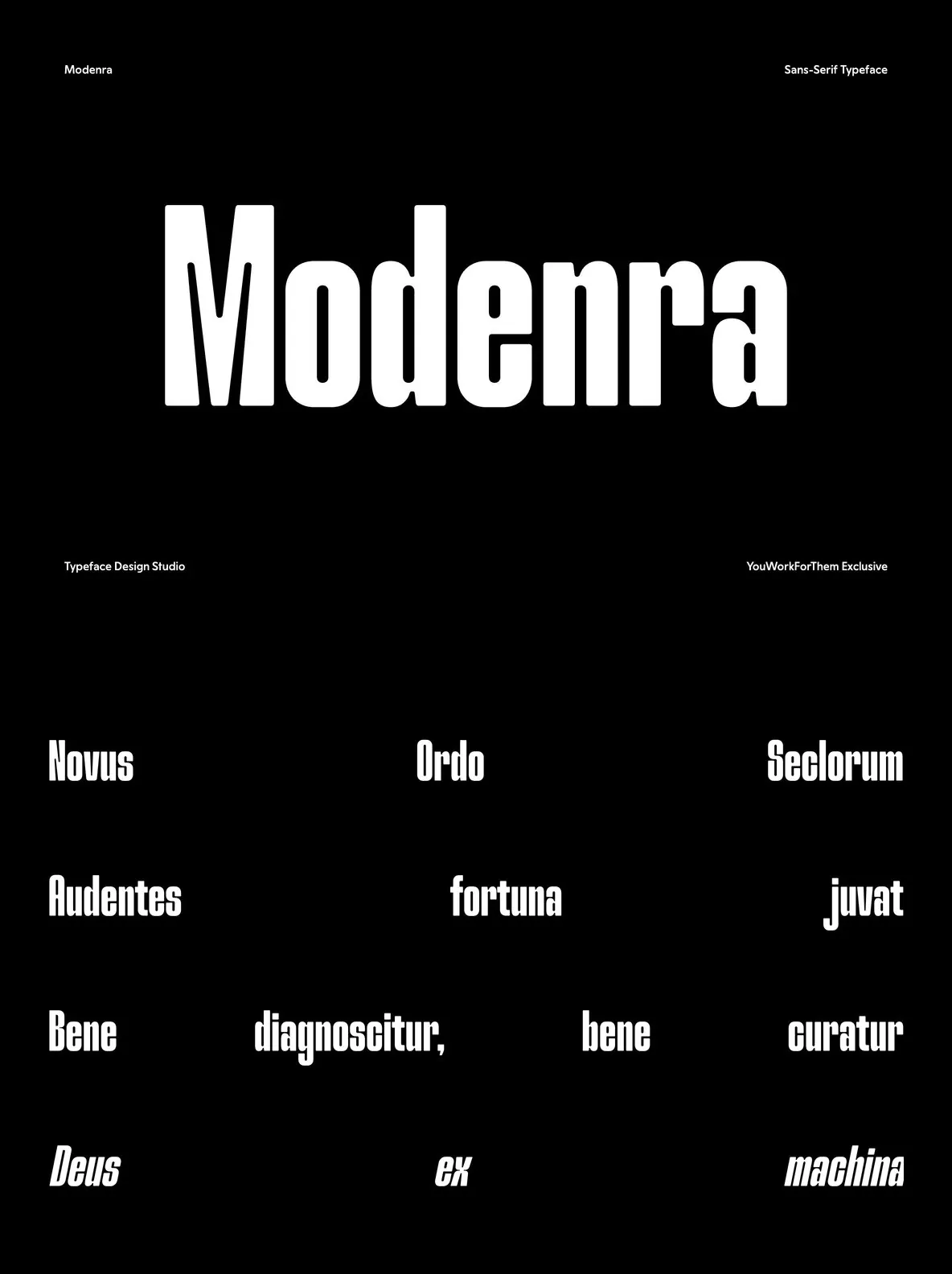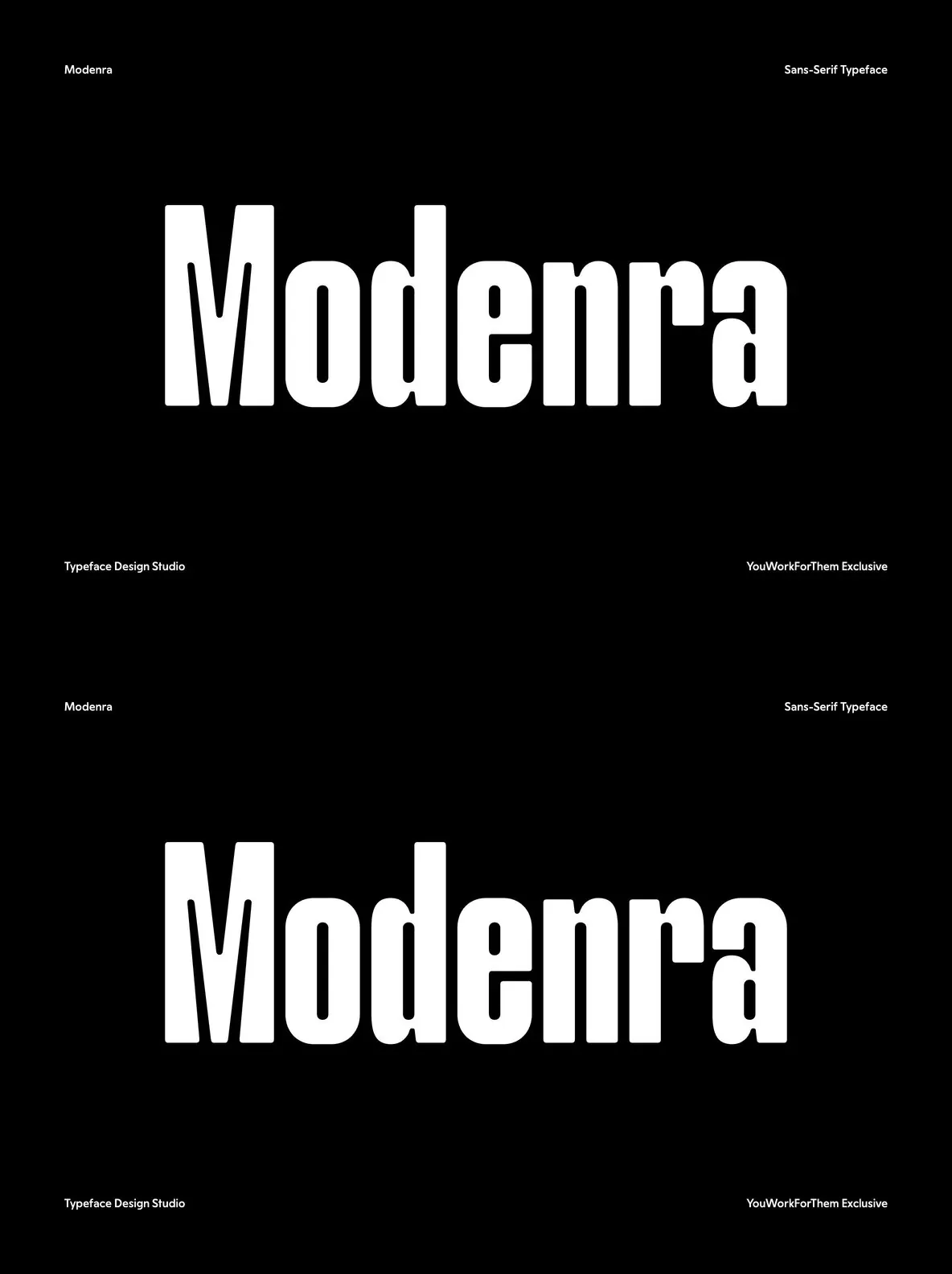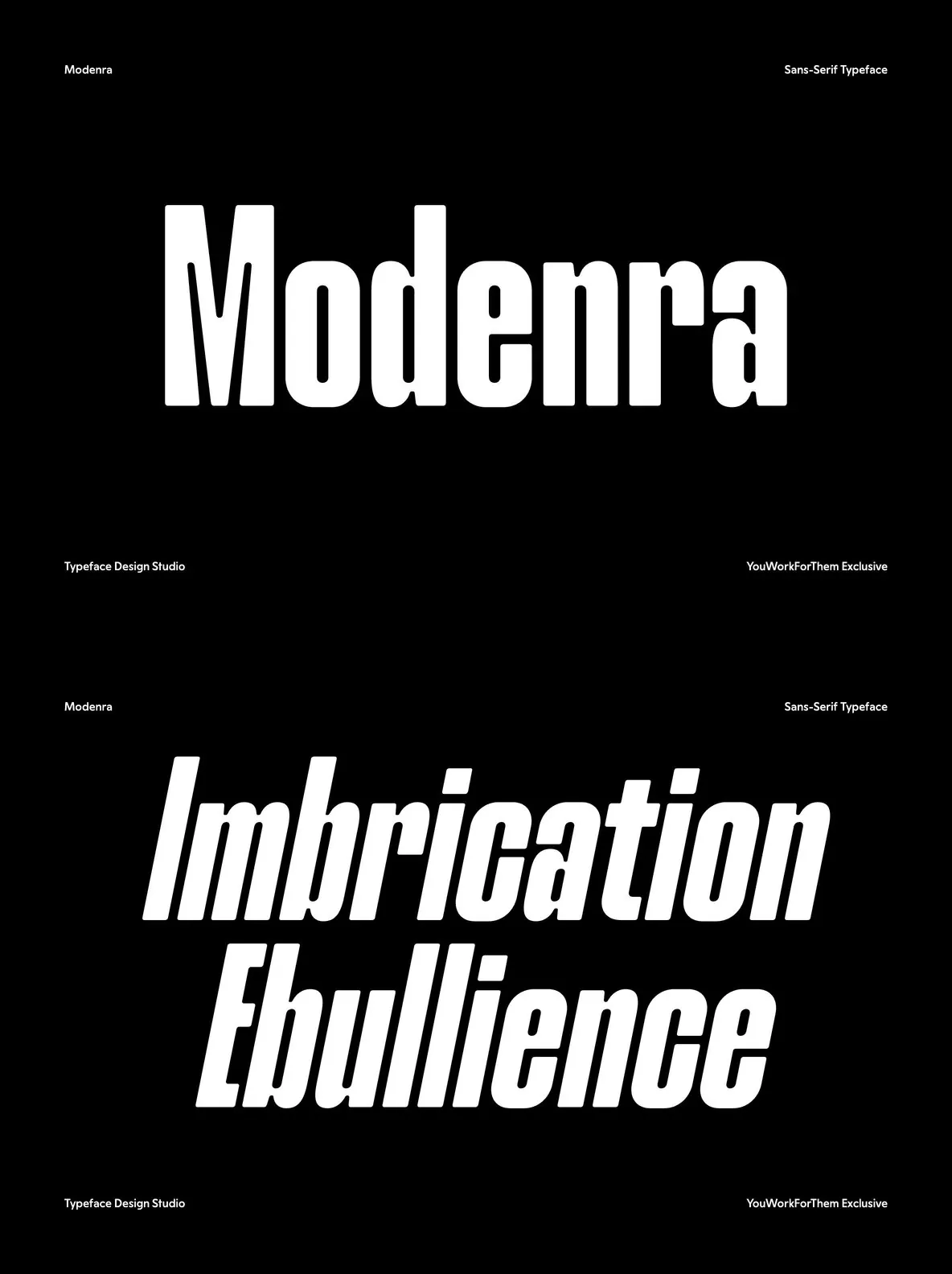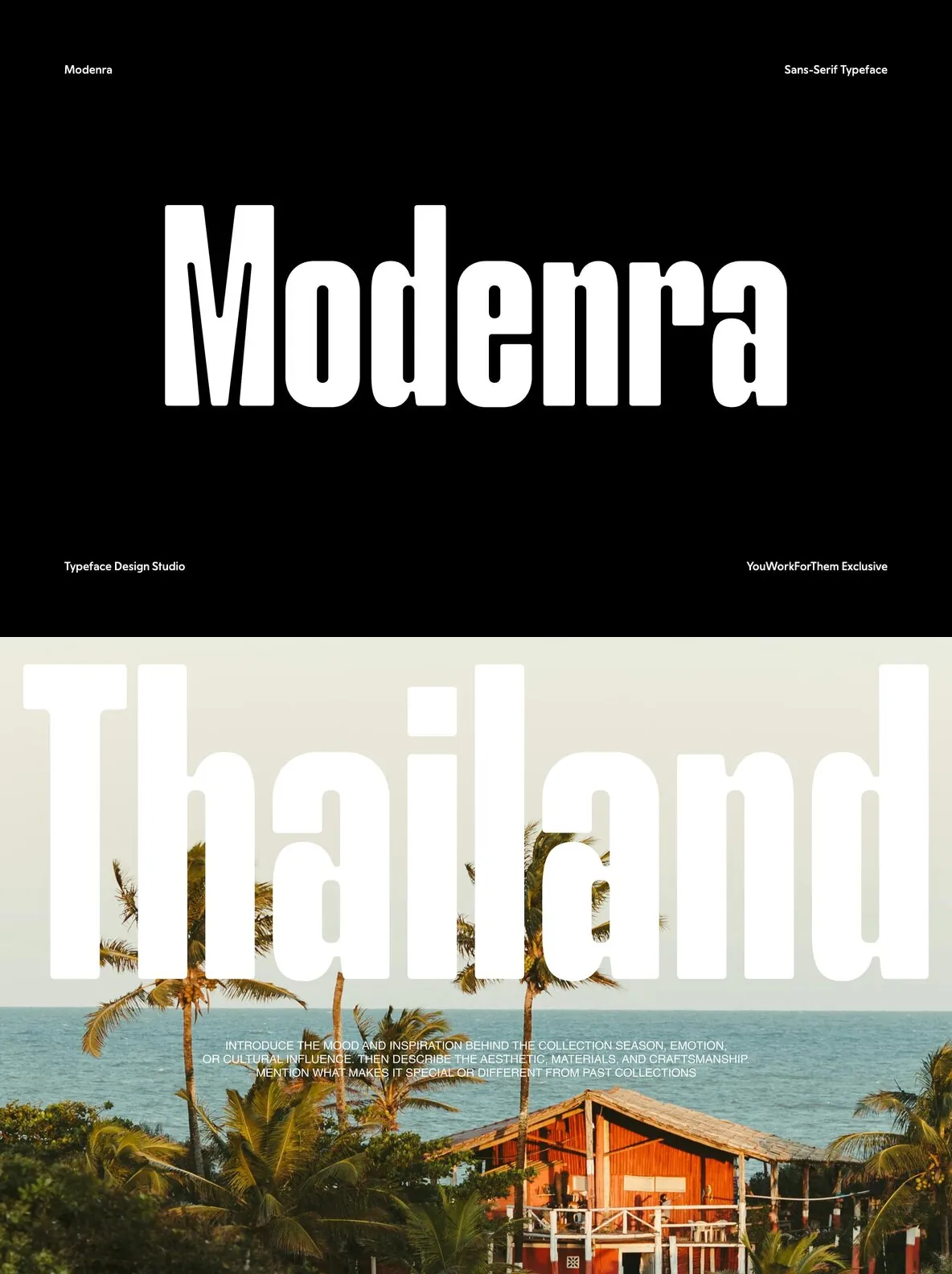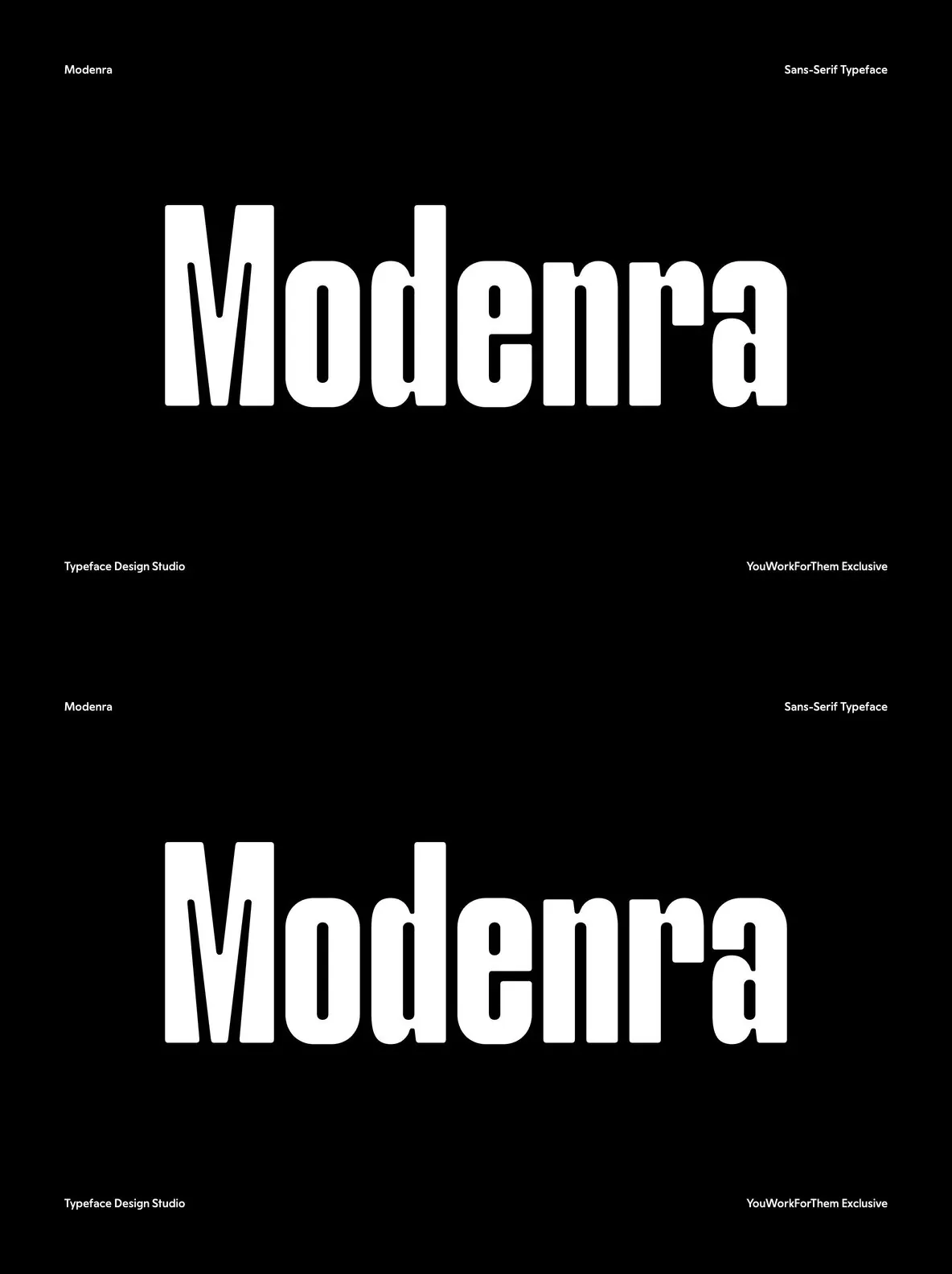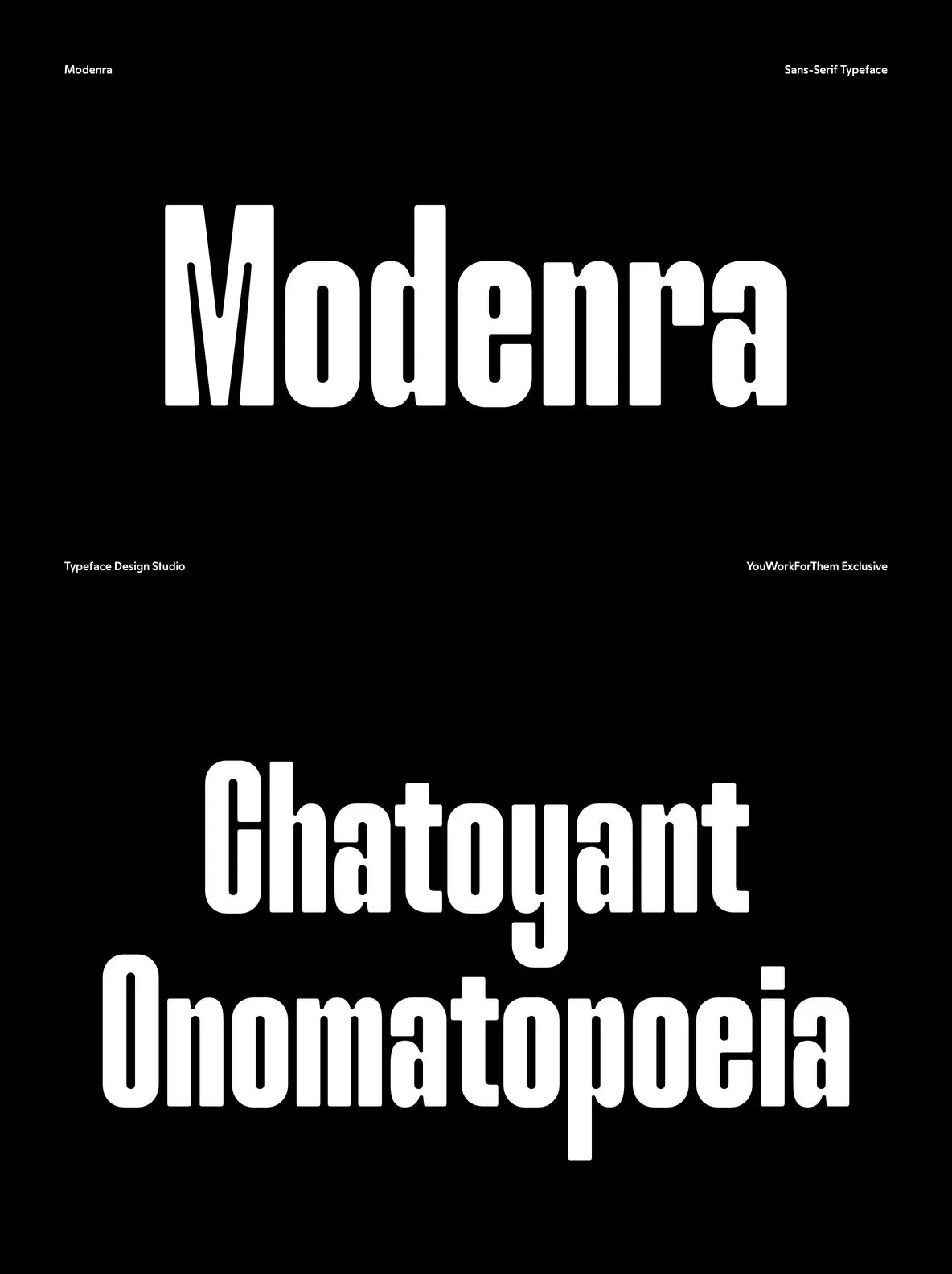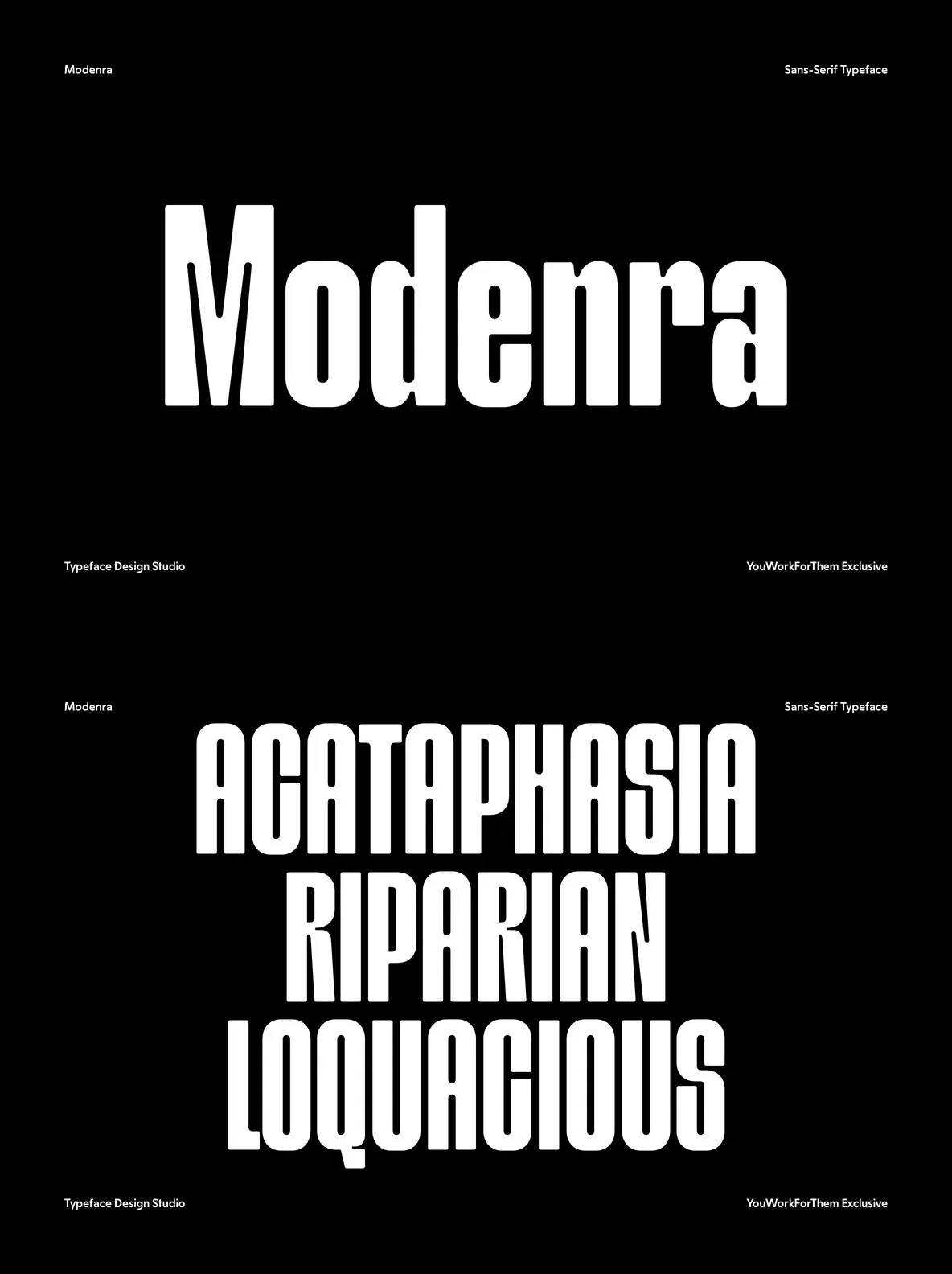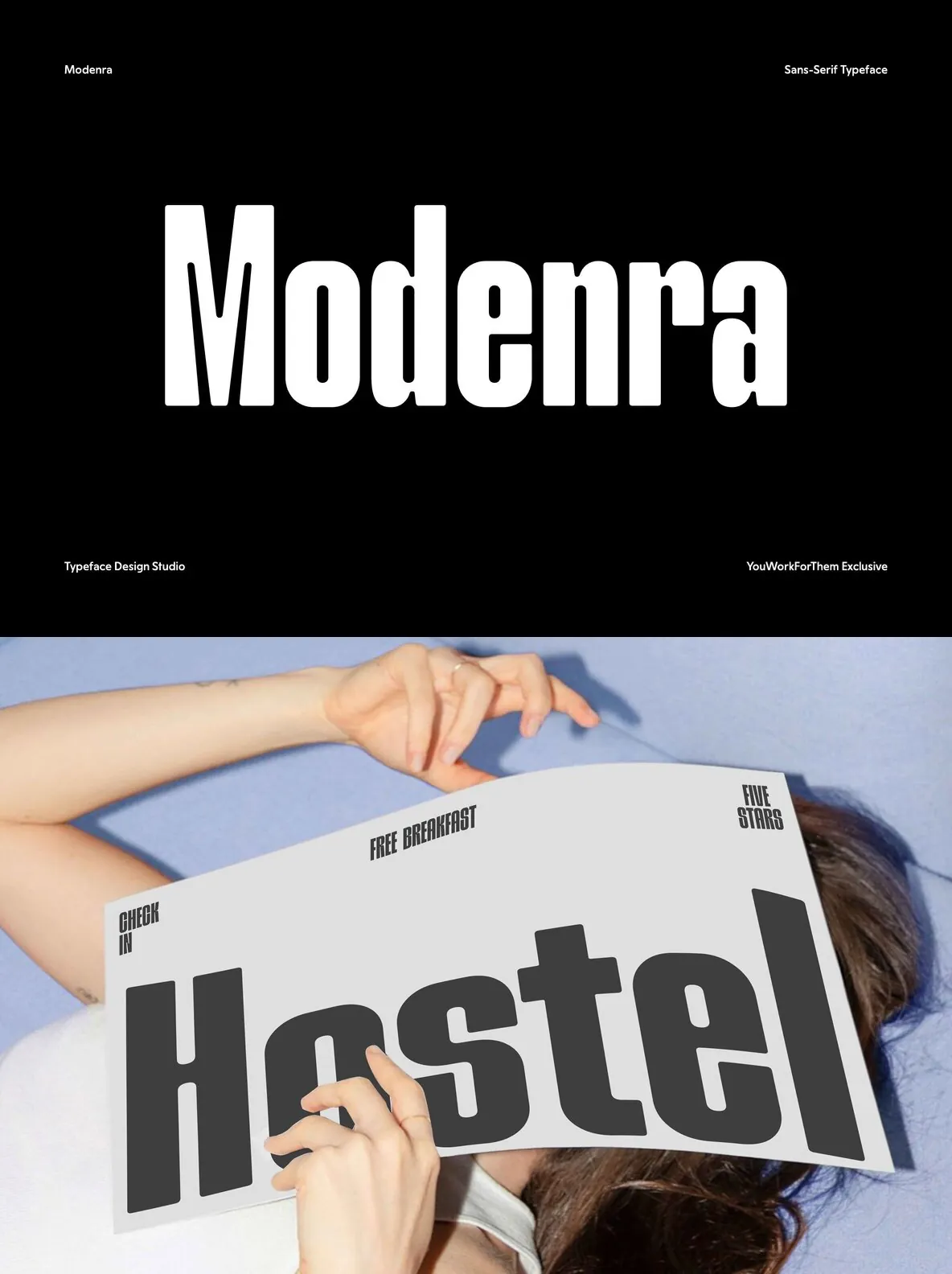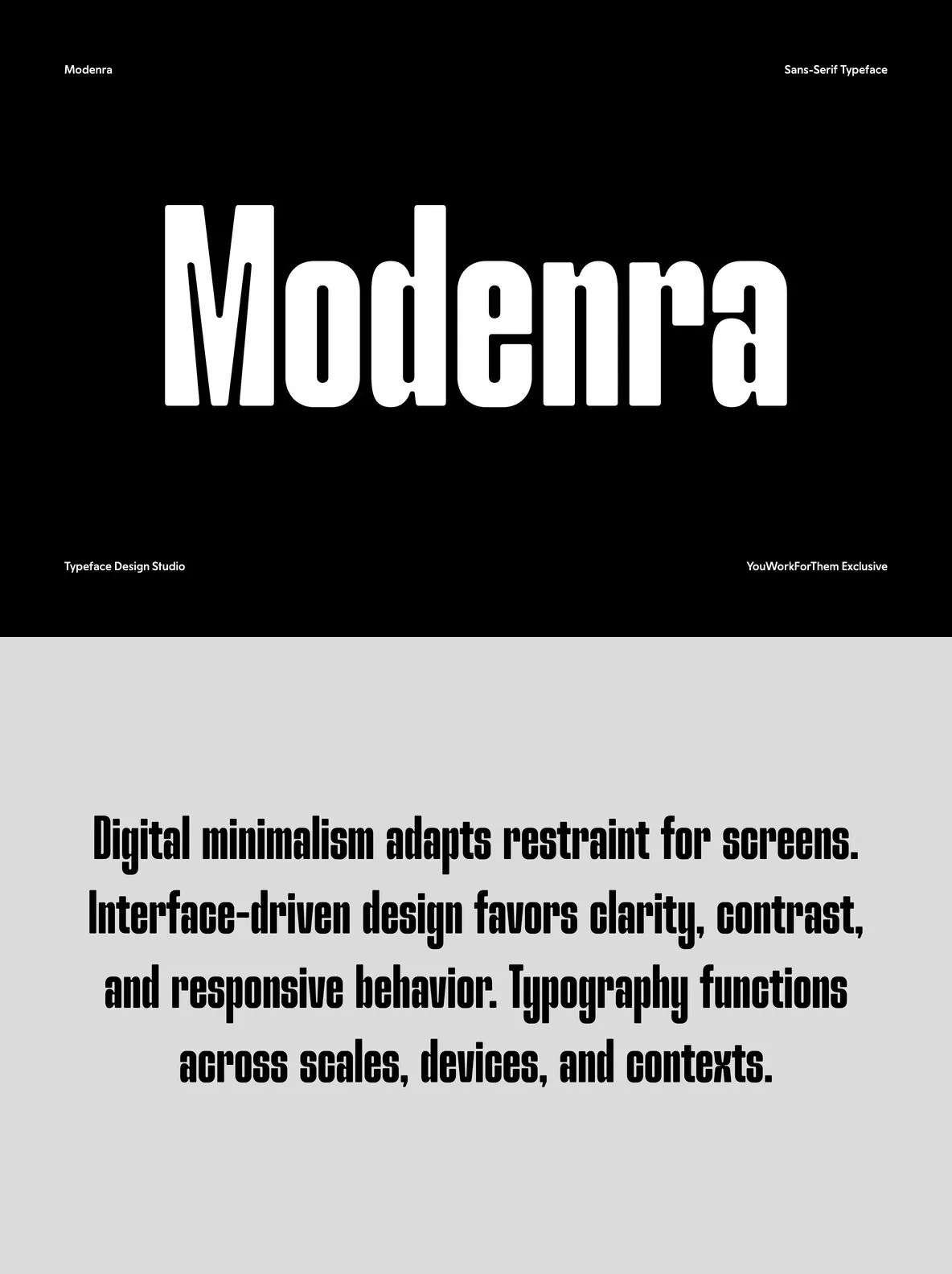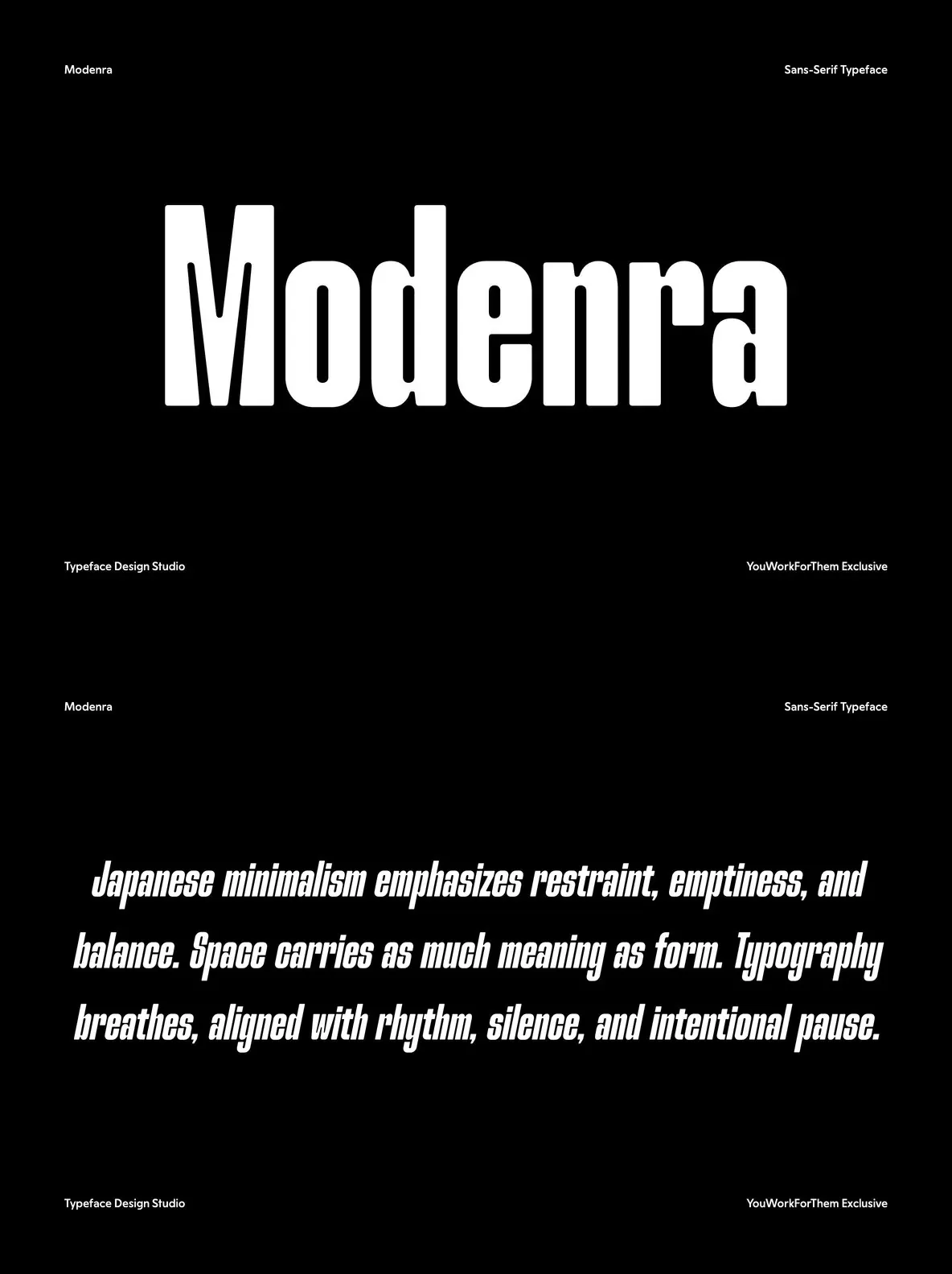
Modenra: Ultra-Condensed Display Typeface With Bold Impact
Modenra is a bold, ultra-condensed display typeface engineered for projects that demand immediate attention. Defined by its towering letterforms, compact spacing, and fluid geometric curves, this font introduces a dramatic vertical presence. Its carefully structured shapes suit headlines, editorial layouts, large-scale posters, and branding applications where a contemporary visual language is essential.
Modenra’s nuanced balance of strength and clarity ensures that copy remains legible while expressing a dynamic, modern attitude. Each glyph is designed with precision, supporting a commanding visual narrative suited to high-impact messaging. This typeface is particularly effective for professionals seeking to assert clarity and personality in their compositions.